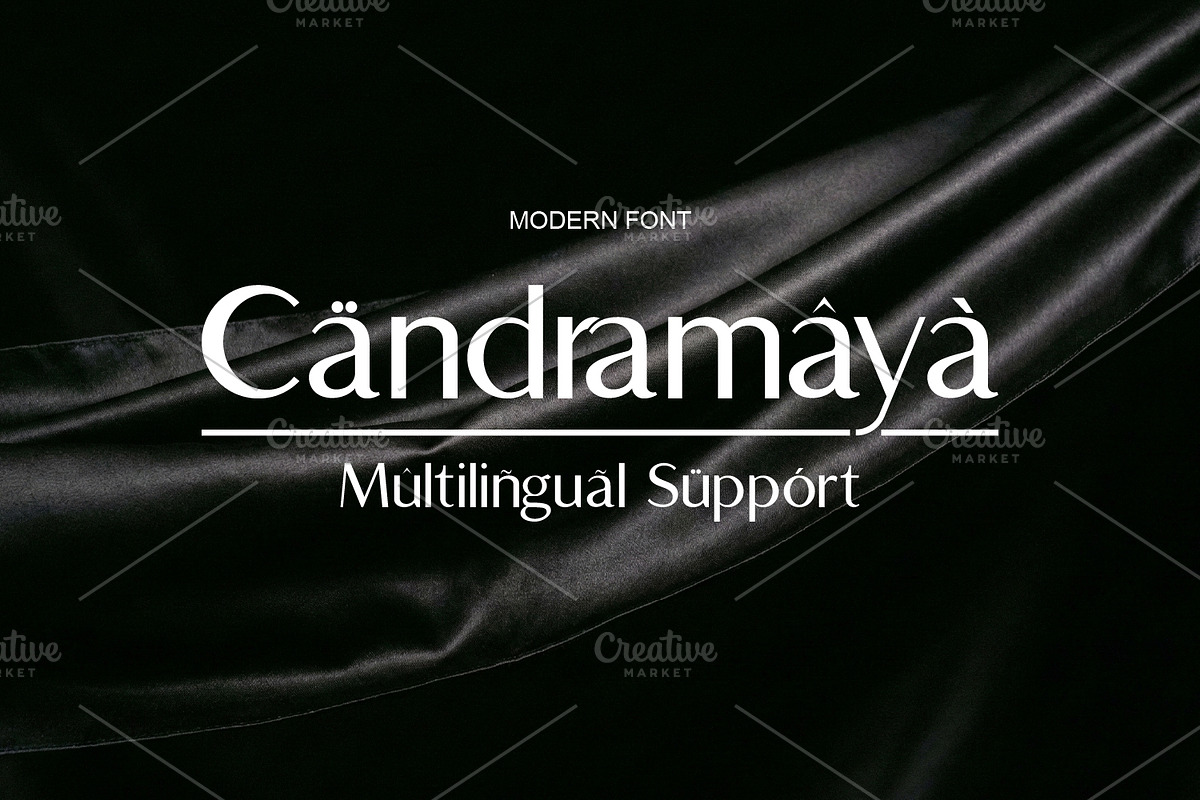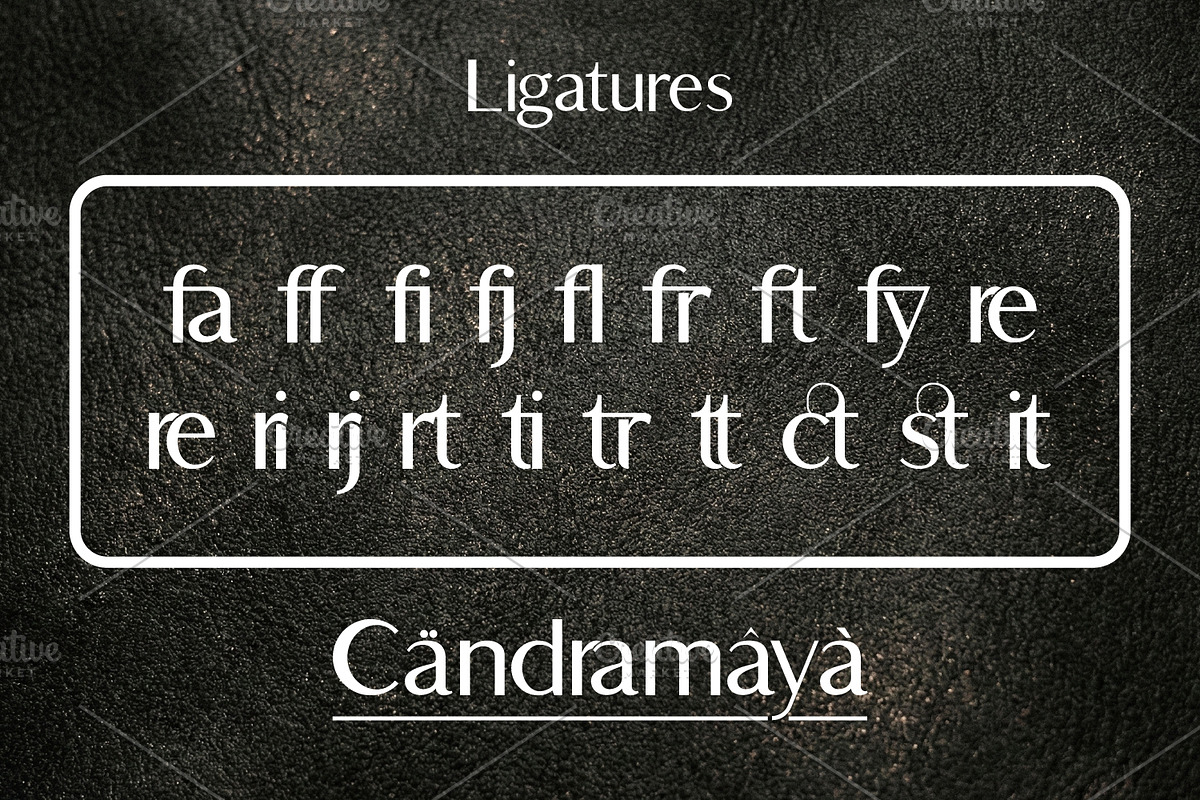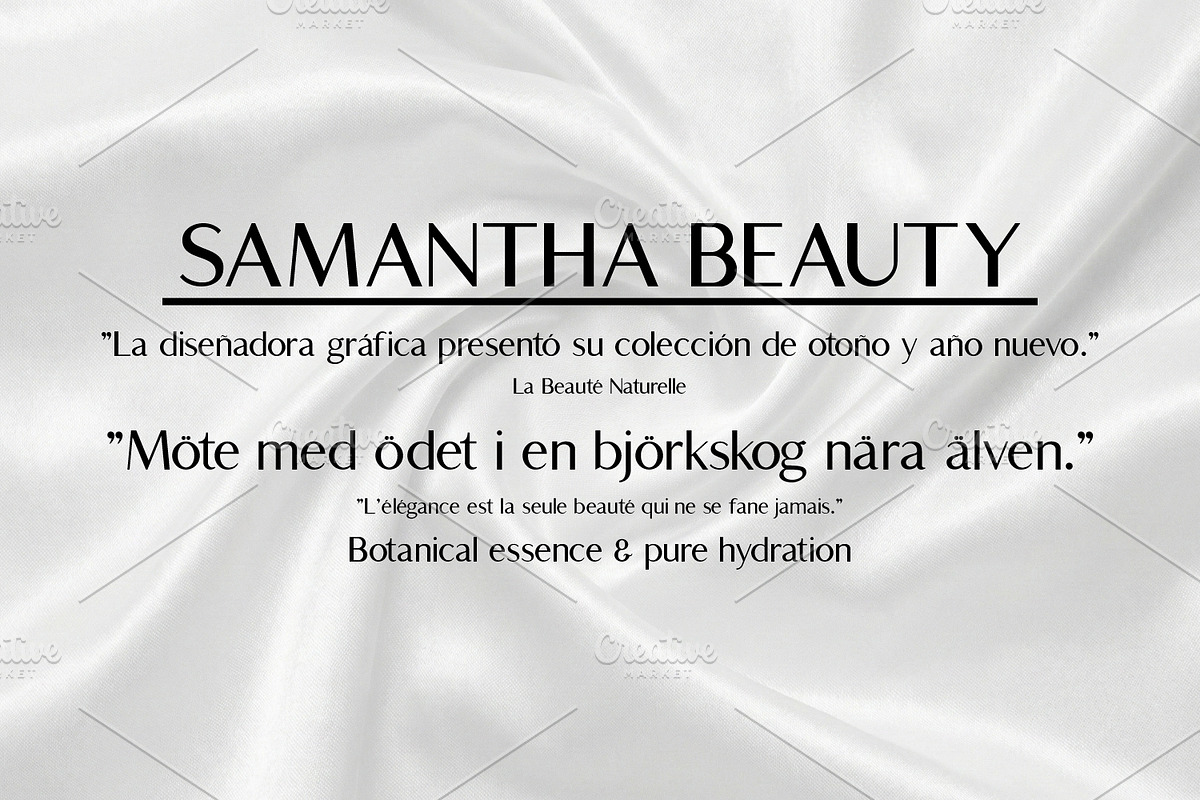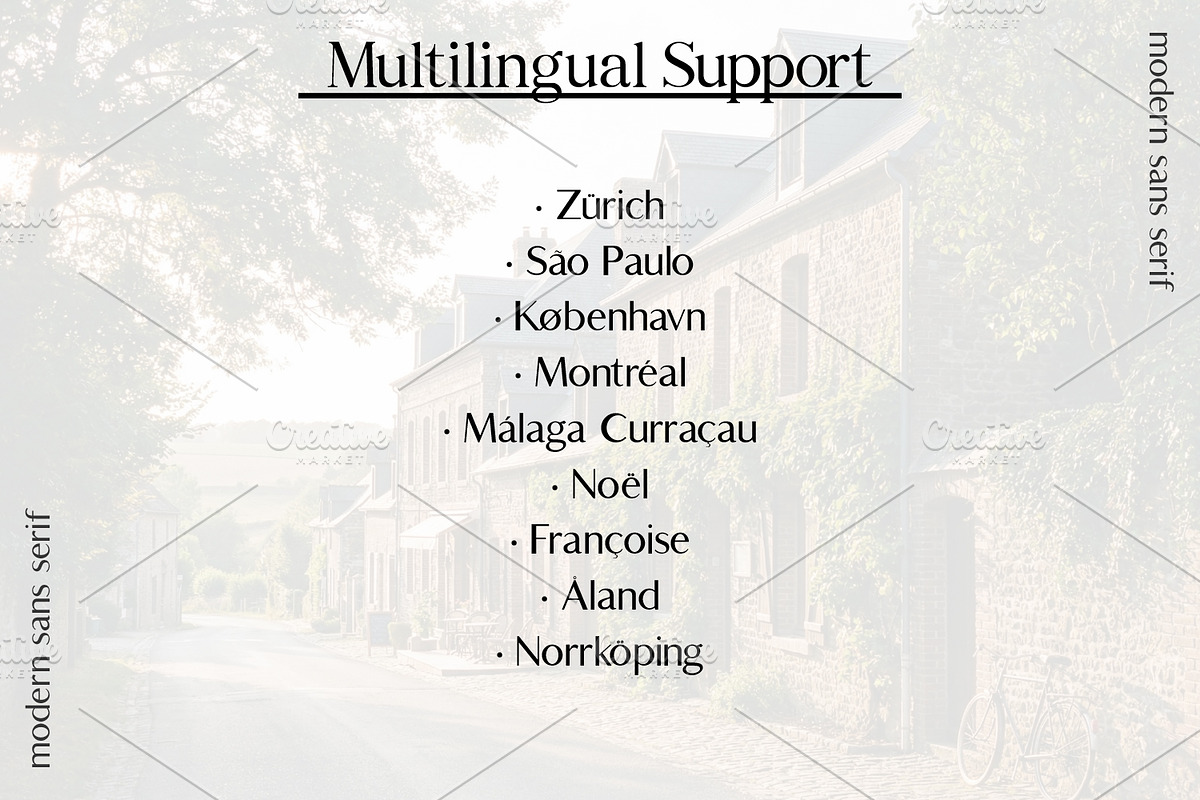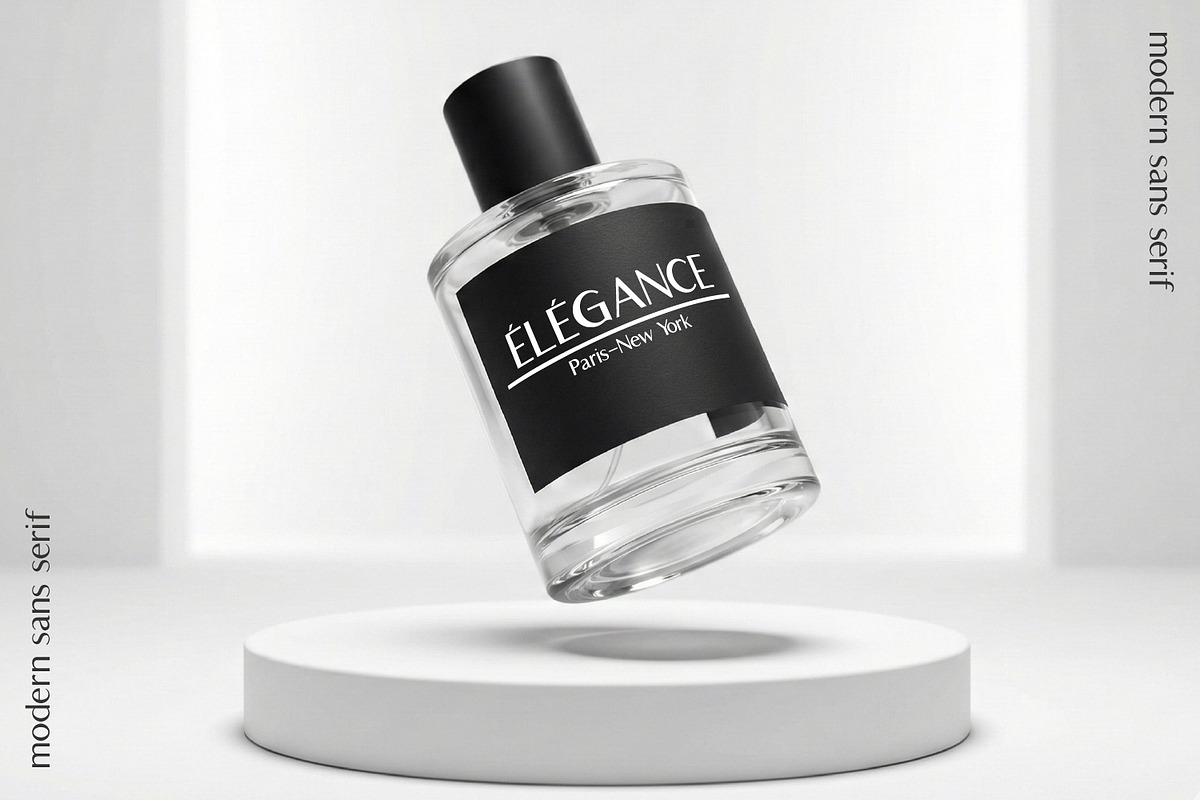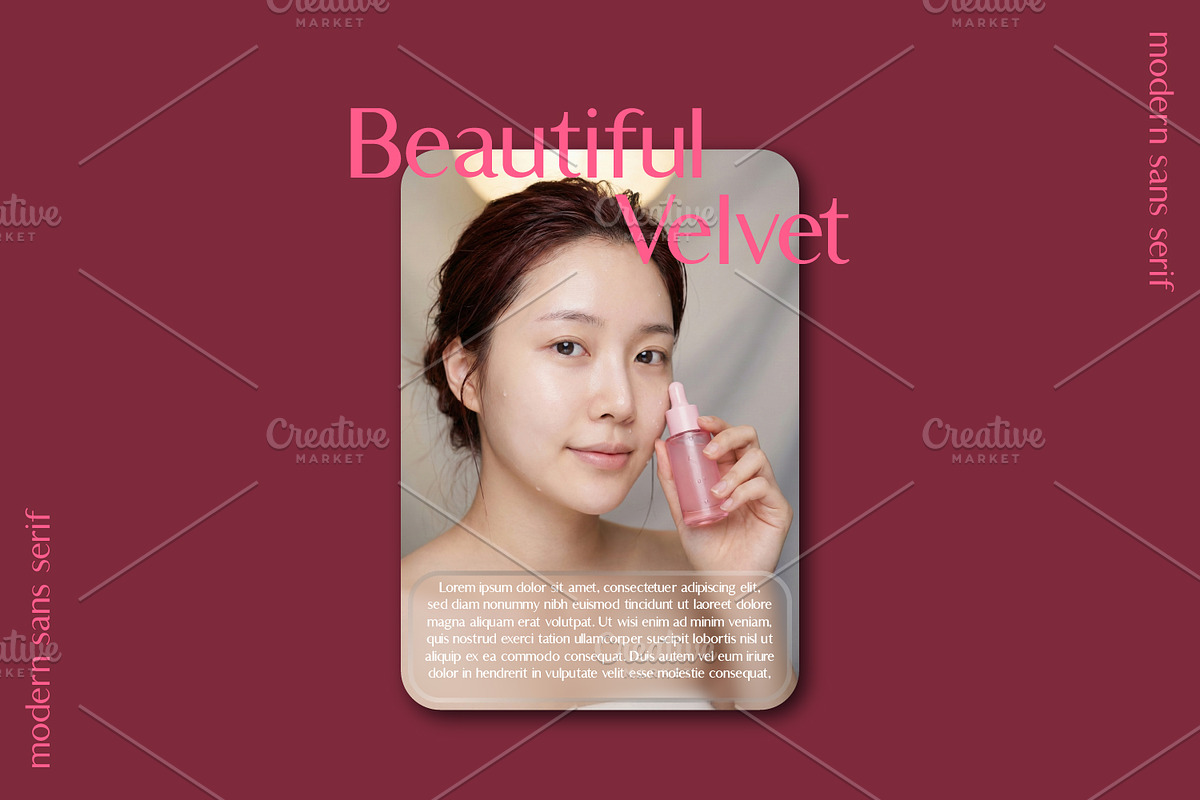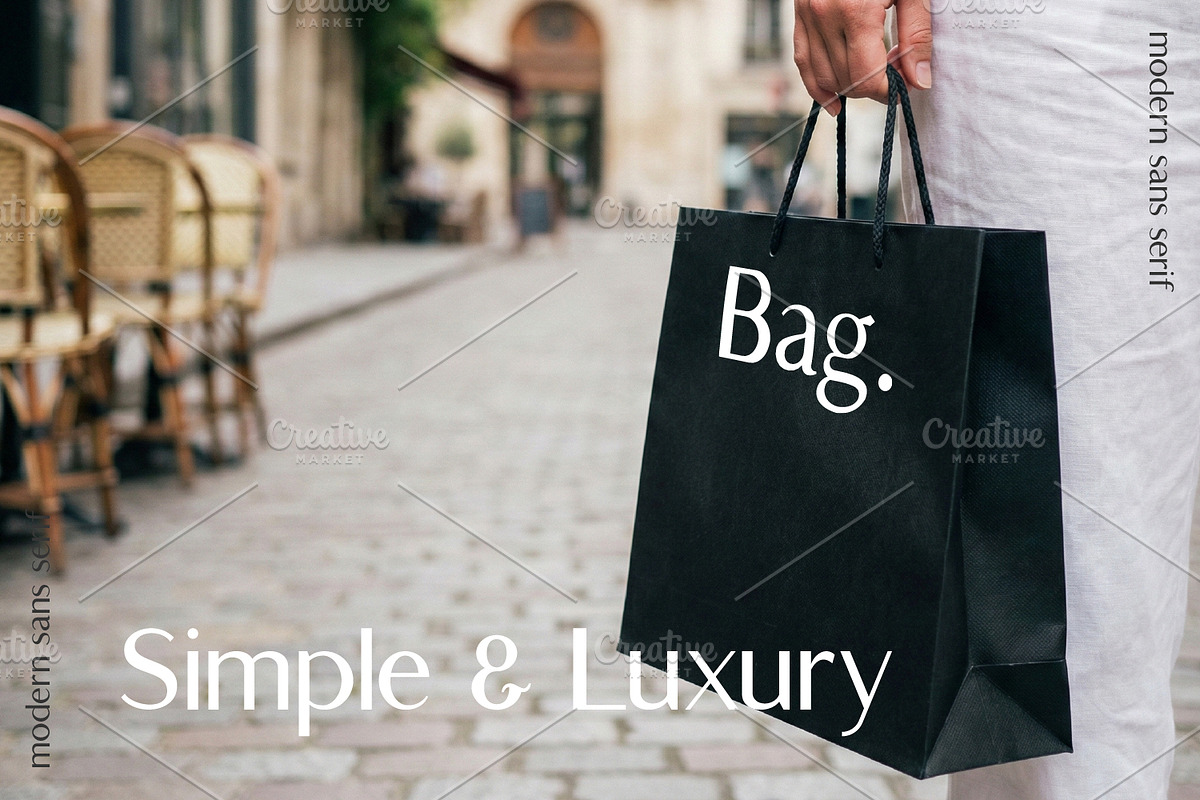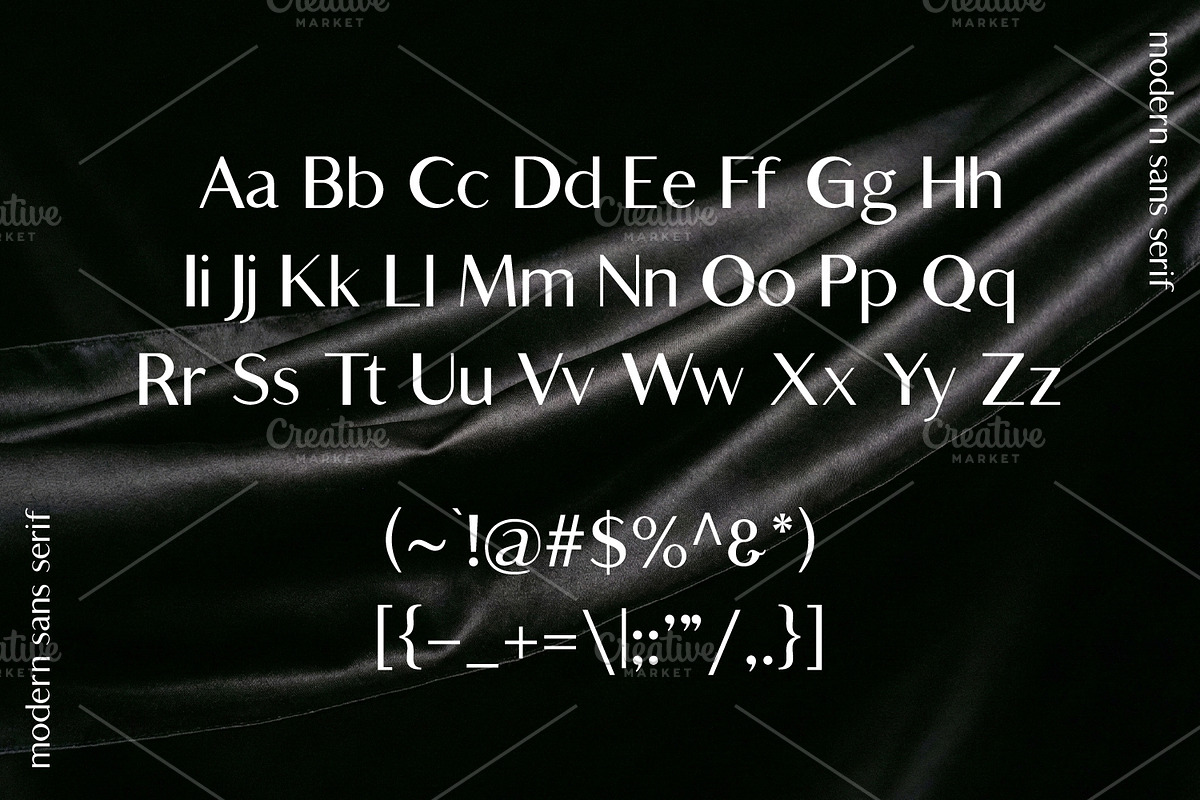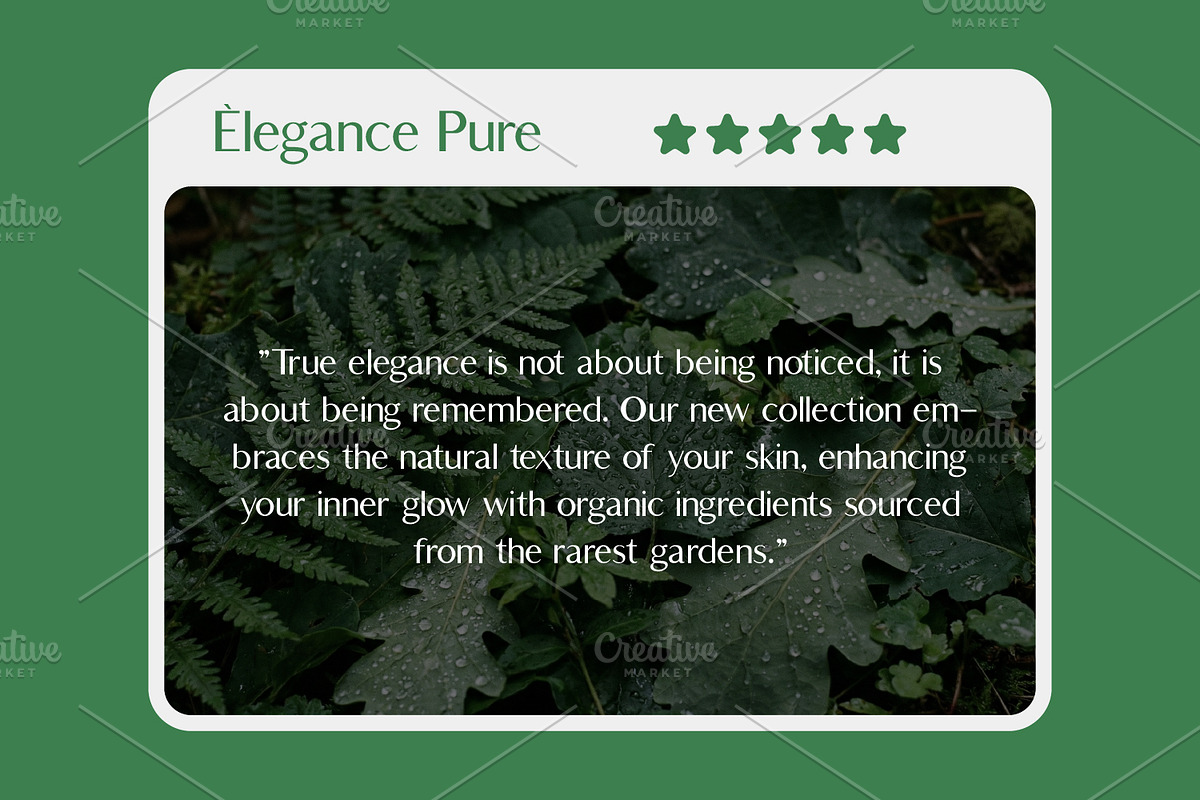
Candramaya Luxury Font
Soft Elegance Sans
Elevate your design work with Soft Elegance Sans, a clean and sophisticated sans serif designed for clarity and impact. With its distinct contrast between thick and thin strokes, this font brings a confident, contemporary feel to any project. Inspired by high-fashion editorials and sophisticated branding, this font balances bold structures with graceful, refined curves. Its neat and versatile character makes it ideal for logos, headlines, stylish web design, and social media graphics that need to stand out cleanly. Soft Elegance is designed to give your message a premium and trustworthy voice.